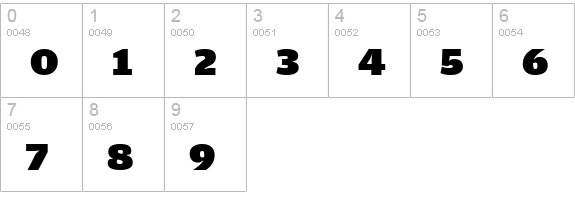
AmplitudeWide-Ultra is an extreme-weight, display variant in the AmplitudeWide typeface family \xE2\x80\x94 well suited to extreme display use where maximum visual weight is required.
AmplitudeWide-Ultra is a striking and modern font that exudes confidence and sophistication. With its bold and wide letterforms, this font commands attention and makes a powerful statement in any design project. Its clean lines and sharp edges give it a sleek and contemporary feel, perfect for headlines, logos, and branding materials. What sets AmplitudeWide-Ultra apart is not only its visual impact but also its versatility. Whether used in print or digital media, this font adapts effortlessly to different styles and layouts, ensuring a polished and professional look every time. Best of all, AmplitudeWide-Ultra is available for free download at FontsMarket.com, making it accessible to designers of all levels. Enhance your projects with this dynamic font and elevate your designs to the next level.